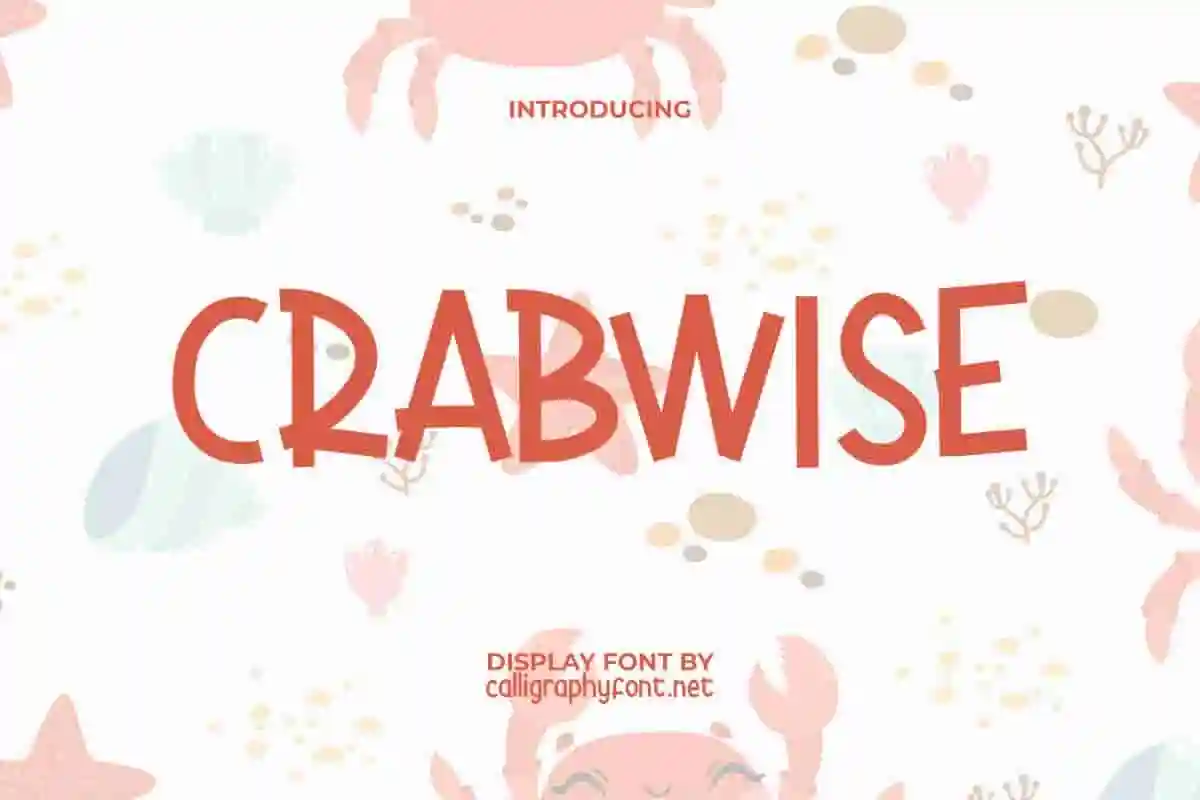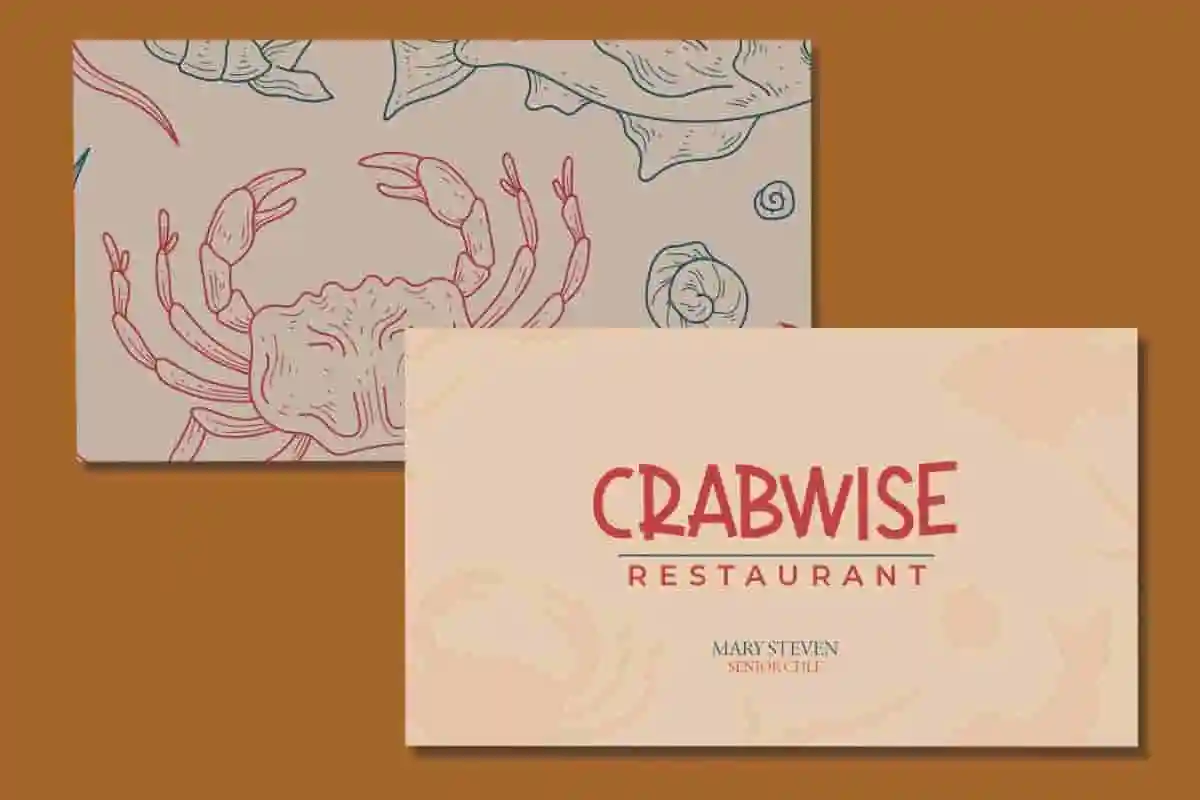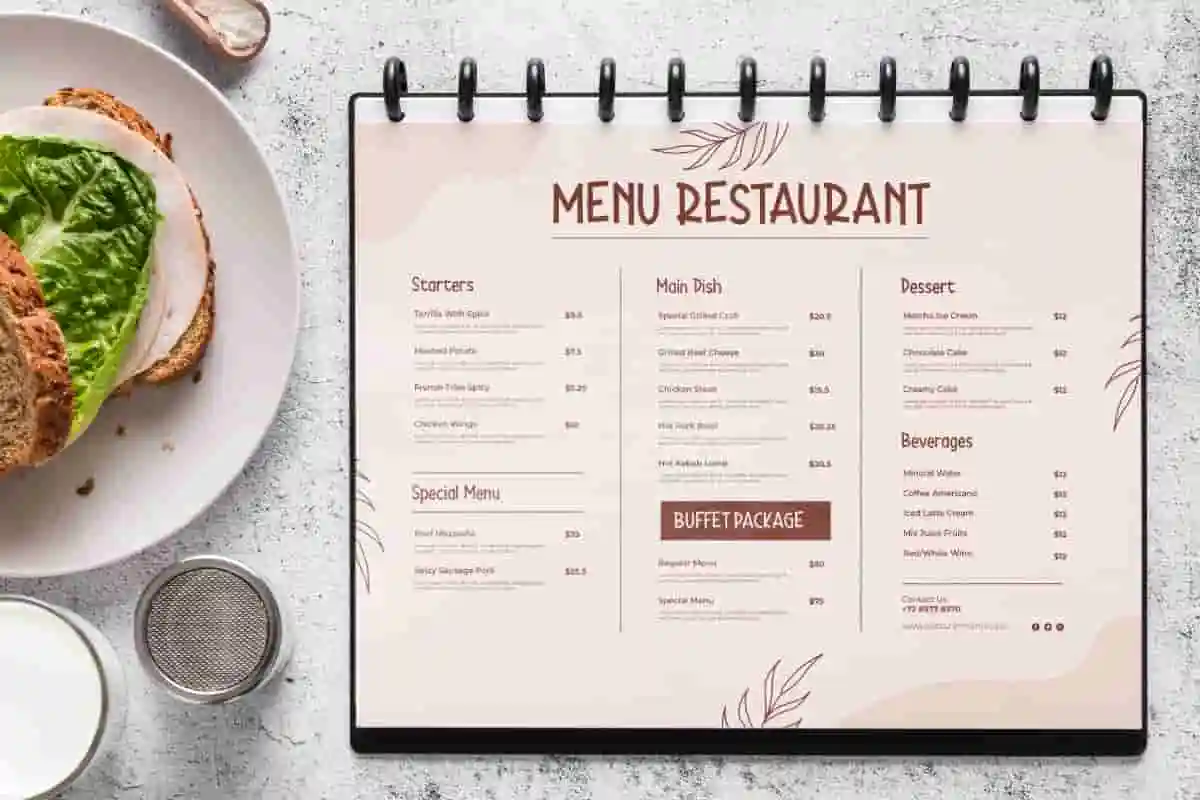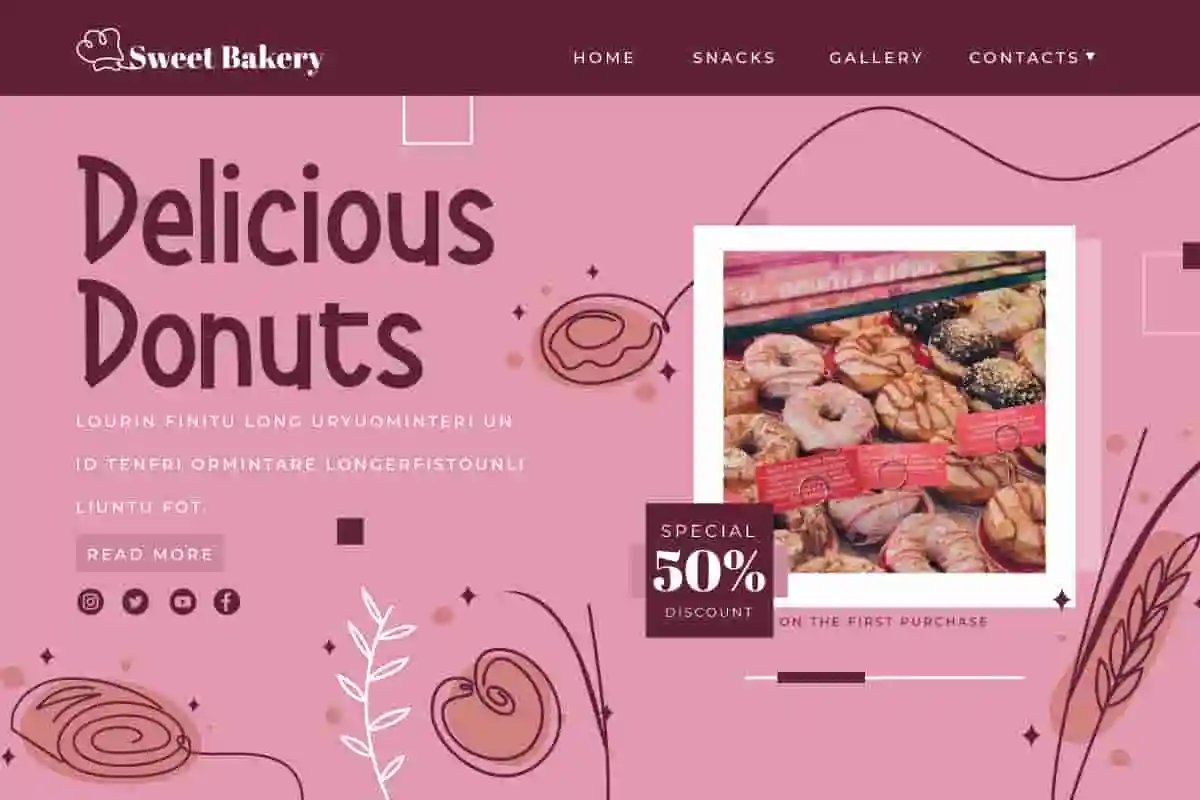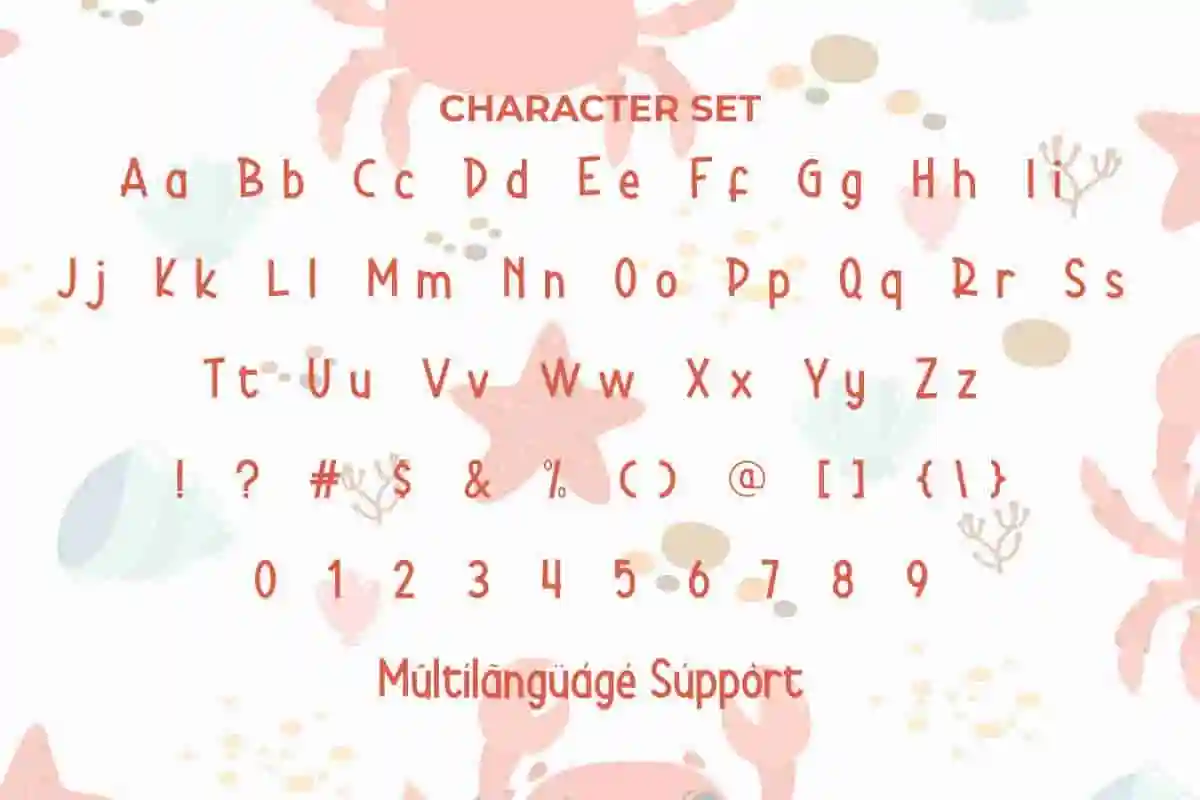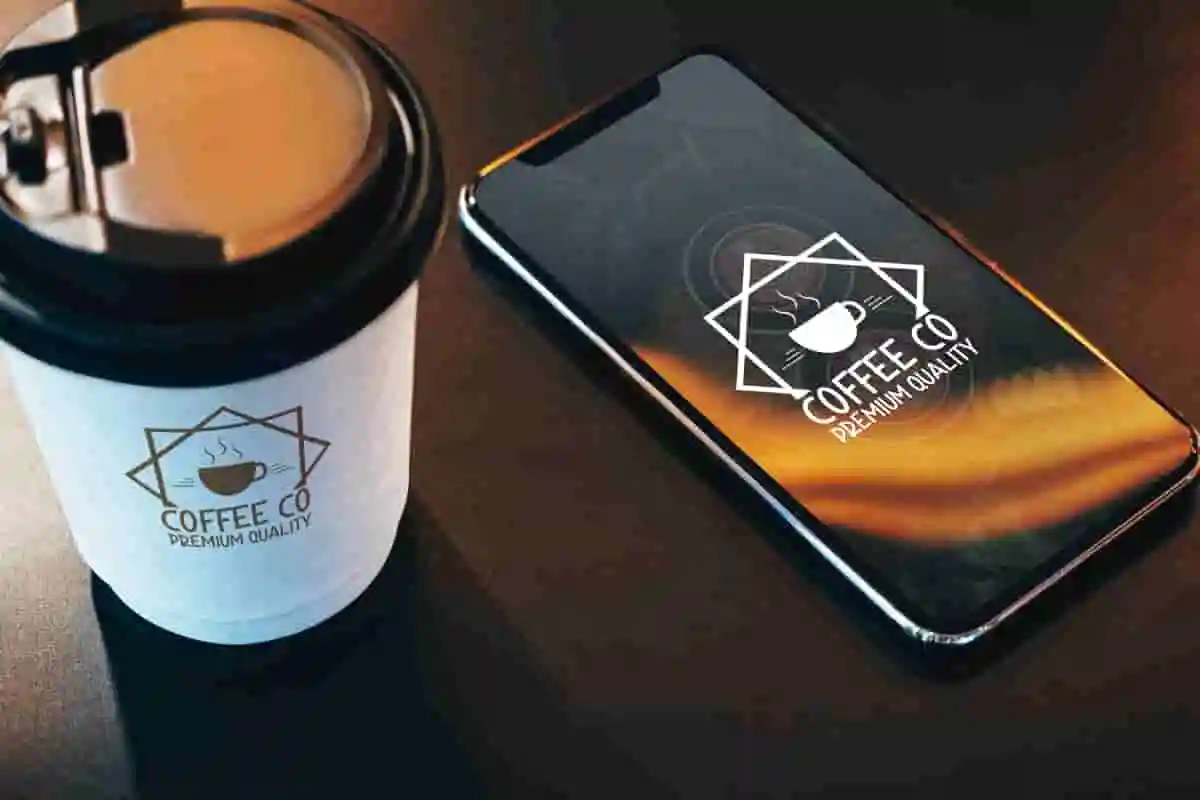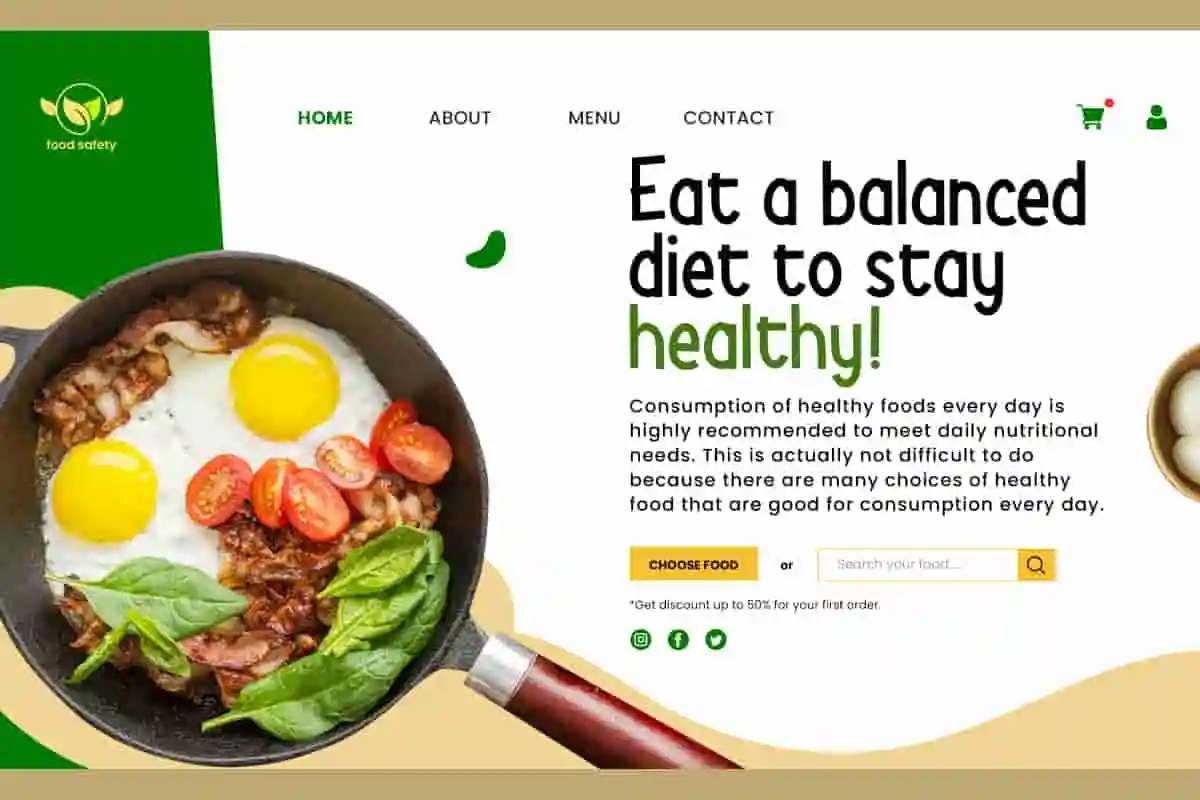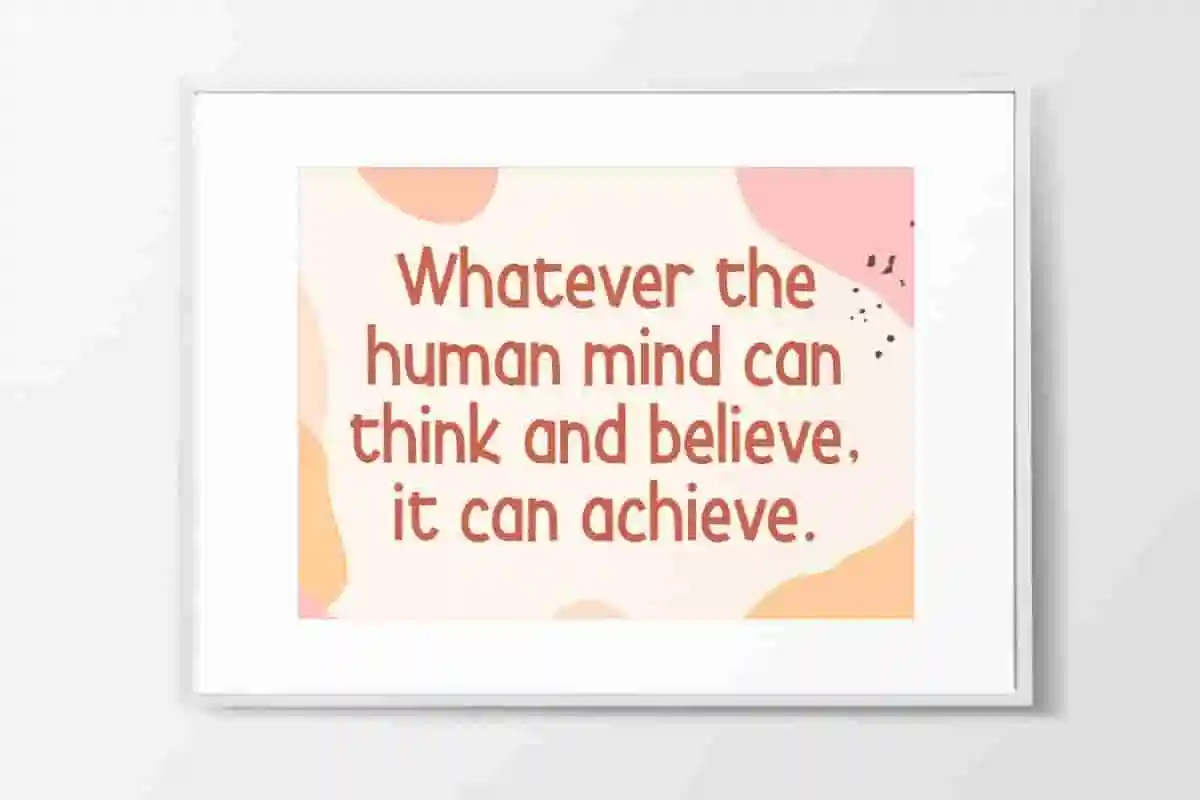
Crabwise Display Font
Crabwise Font is a fresh and playful display font with a carefree concept. This is original handmade and not too complicated. Use this to become part of your creative designs for ease!
Crabwise Font is an eye-catching display font full of playfulness. Designed with a cute and fun theme, it comes with an appearance that is beautiful and modern in its own way. Perfect for app views, birthday invitations, business card, covers, header, logos, menus, mockup, product packaging, quotes, stickers, summer designs, t-shirt designs, title, websites, and much more.
Looking for a font that grabs attention and keeps eyes locked in? Crabwise Display Font is your new creative weapon. Crafted for designers, brands, and creators who want to stand out, this bold, quirky, and versatile display font adds instant personality to any project. Whether you’re designing eye-catching headlines, impactful posters, bold logos, or dynamic social media graphics, Crabwise delivers with style.
Searching for a typeface that instantly catches the eye and brings bold personality to your designs? Meet Crabwise Display Font – a fresh, stylish display font made to break the mold and command attention. Crabwise is not your average font. Its bold strokes, playful curves, and confident character make it the perfect choice for designers looking to make a statement.
Bring bold energy and creative flair to your work with the Crabwise Display Font — a modern, eye-catching typeface crafted for designers who want to leave a lasting impression. Crabwise is more than just a display font — it’s a visual voice for bold branding, vibrant packaging, standout headlines, and unforgettable logo design.
- Bold & Unique
- Versatile Use
Crabwise Font is inspired by the bouncy font style but the difference is that this one is slimmer and taller. It will look cool for whatever creative design you have. Use this font for apparel, baby clothing, birthday parties, cafeteria, crafts, florist, food franchise, gardener, graphic design, healthy snacks, holidays, photography, restaurant, school, toys, vacations, and so on.
Crabwise Font comes with a complete set of Uppercase and Lowercase Basic Characters, Number, a large range of Punctuation, and Symbol. It is supported with multilingual characters and ready to use both on Windows machine or Mac with simple installations. It’s tested to work well in the Adobe Apps (Illustrator, Adobe InDesign, Adobe Photoshop) CorelDraw, and others. PUA Encode Characters means you can access all the characters easily – Fully accessible without additional design software.